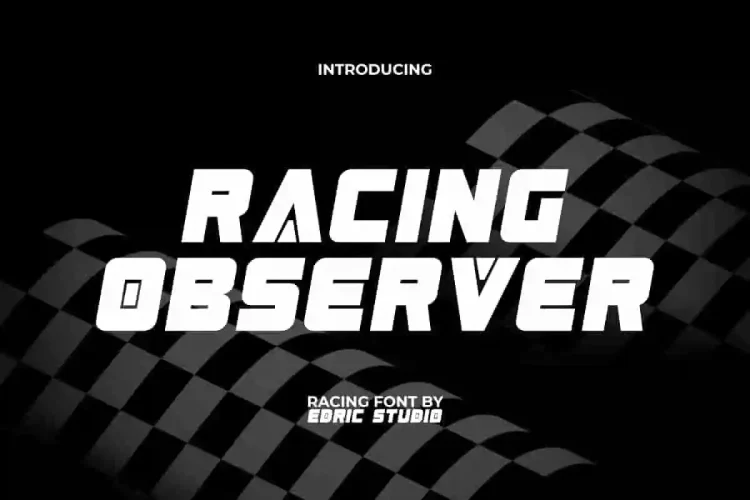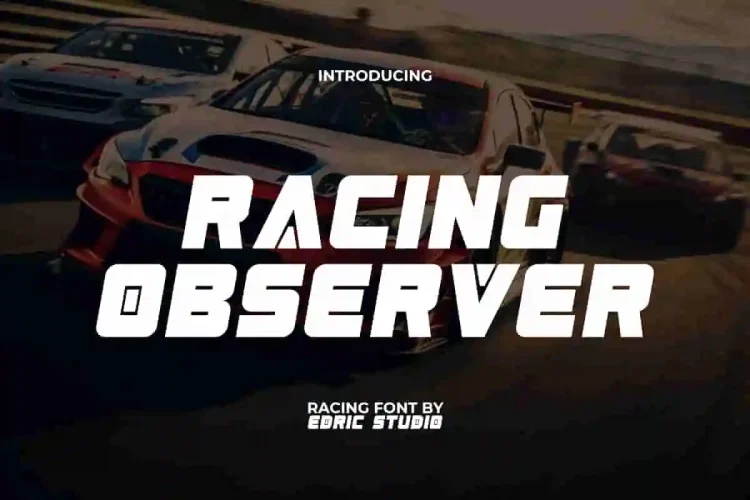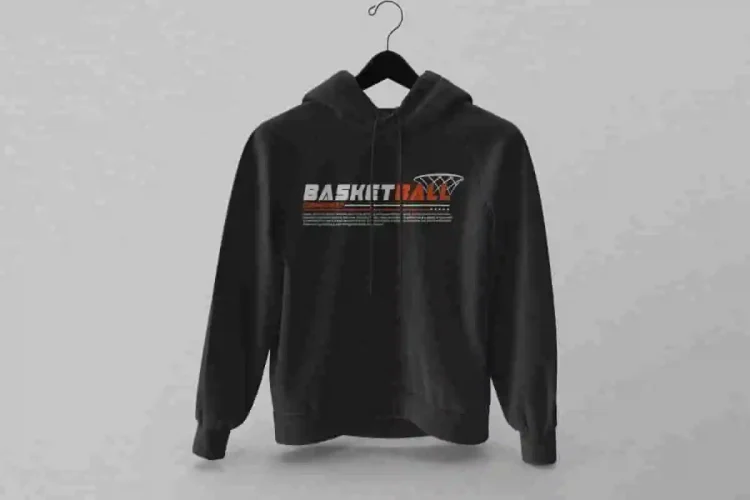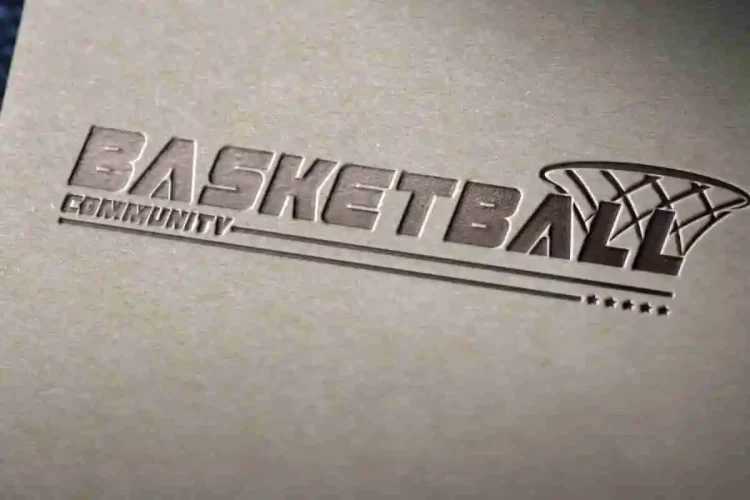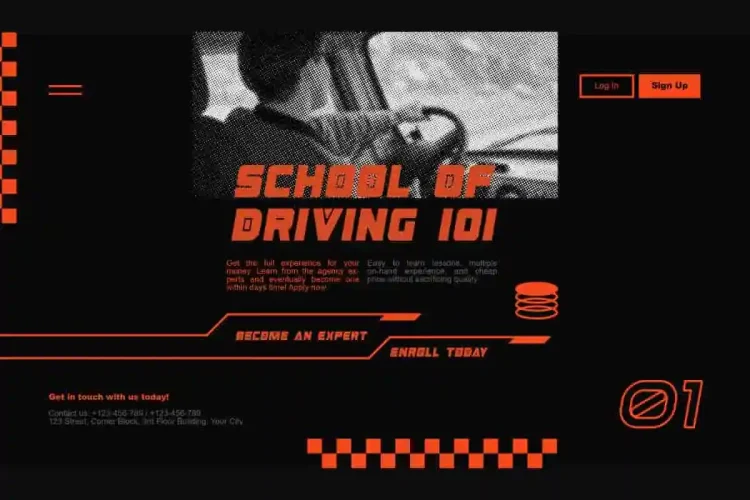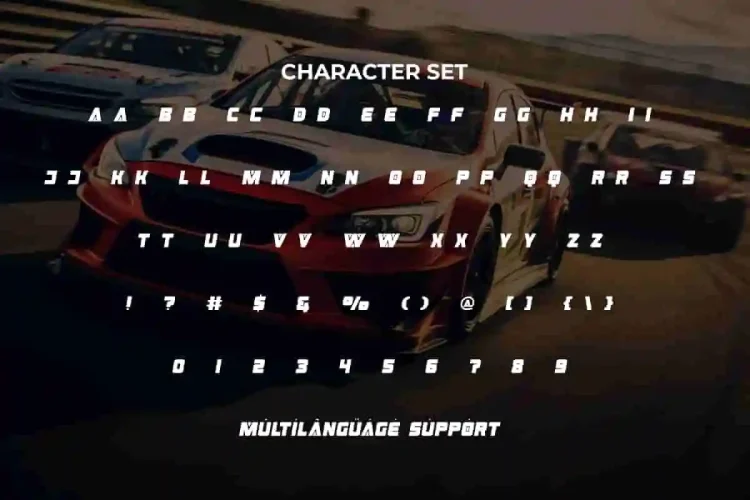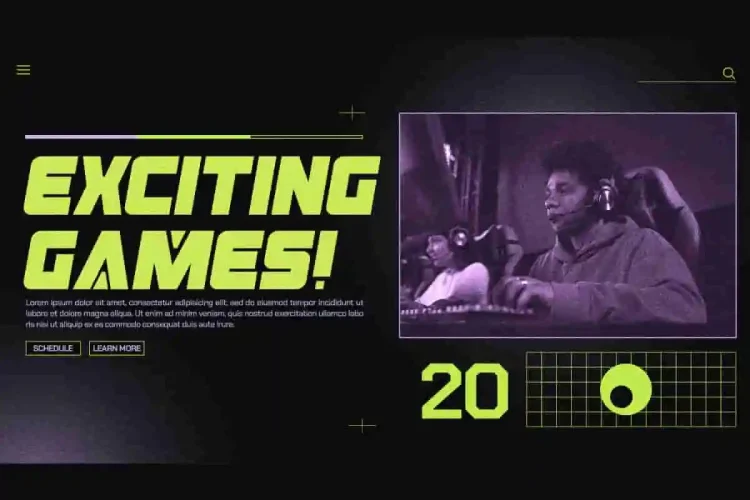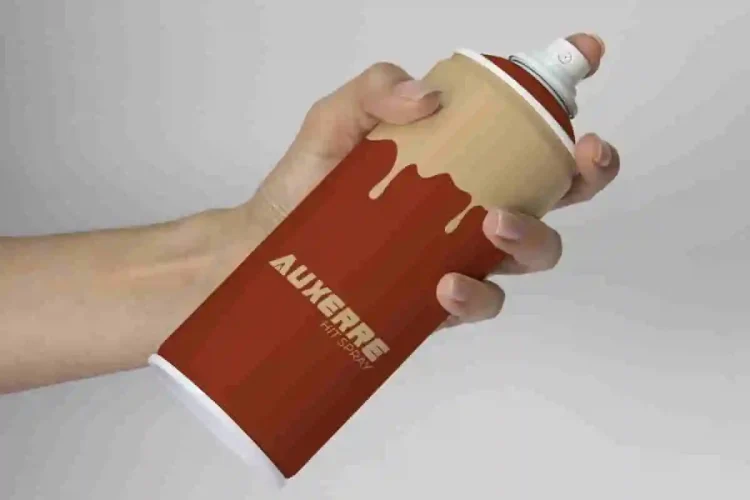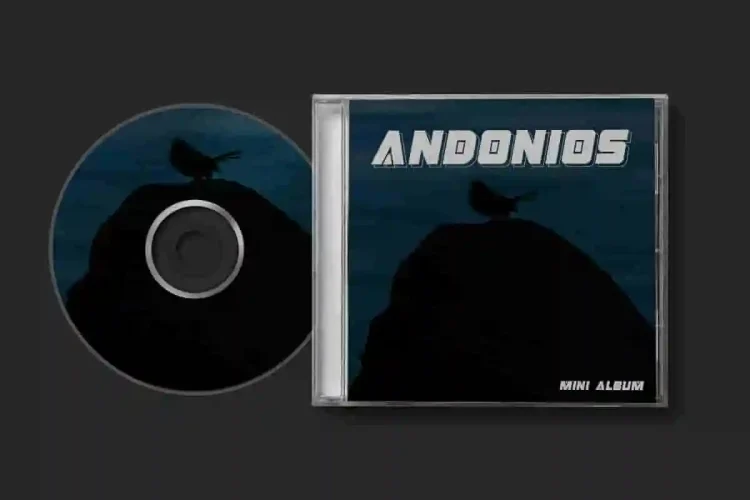
Racing Observer Font is a unique decorated stylish racing font. This font comes with an interesting visual impression with unusual characters. It can make your project stand out from the rest. Perfect for album covers, brand logo, brochure, embossed design, headline, packaging, poster, product label, mockup, screen printing, stationery, template, title, website, and much more.
Racing Observer Font includes a complete set of ALL CAPS for both Uppercase and Lowercase letters, Numbers, Punctuation, and Symbols. The presence of the latest unique urban typeface creations that work perfectly to attract attention and make an impact. Perfect for accessories and merchandise, advertising, auto racing, automotive, band music, clothing brand, driving, fashion, game, graphic design, motorsports, photography, sportwear, strength sports, and more.